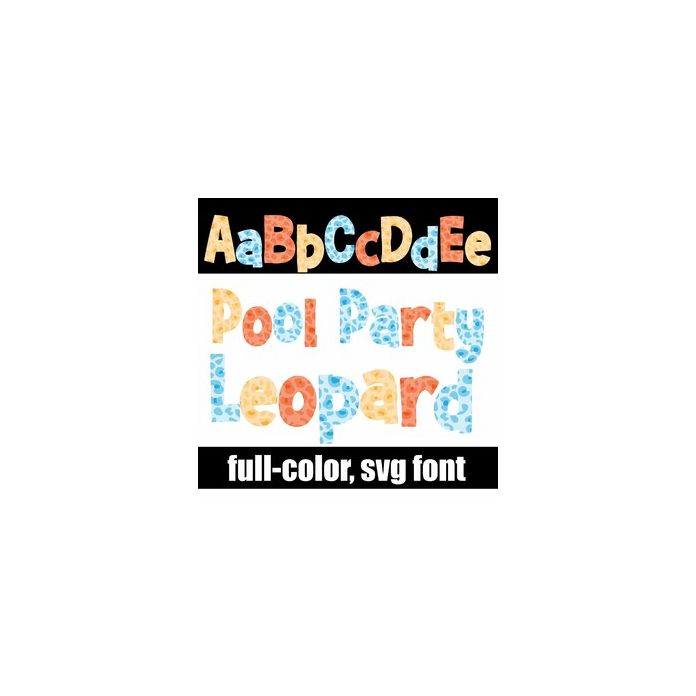
This full-color font features a leopard print in a summer color palette. There is an alt case w/ additional colors you can access through your system or Silhouette's glyph map.